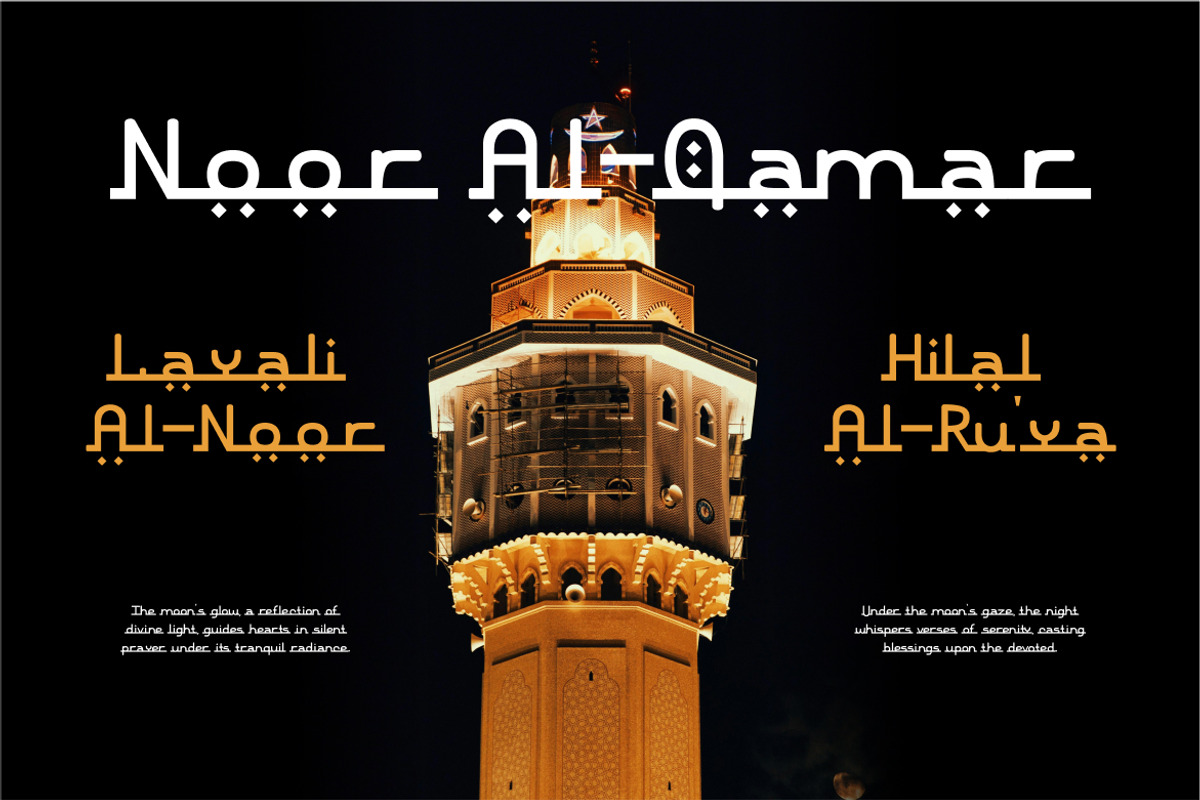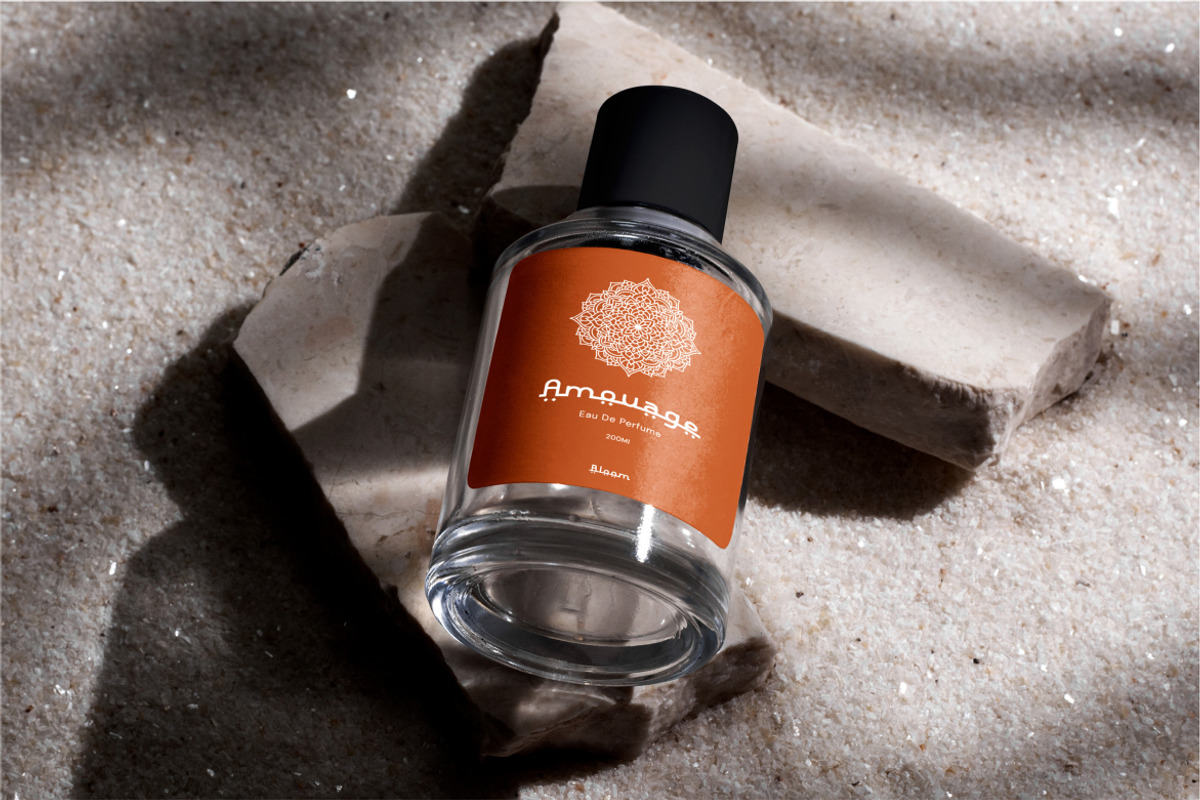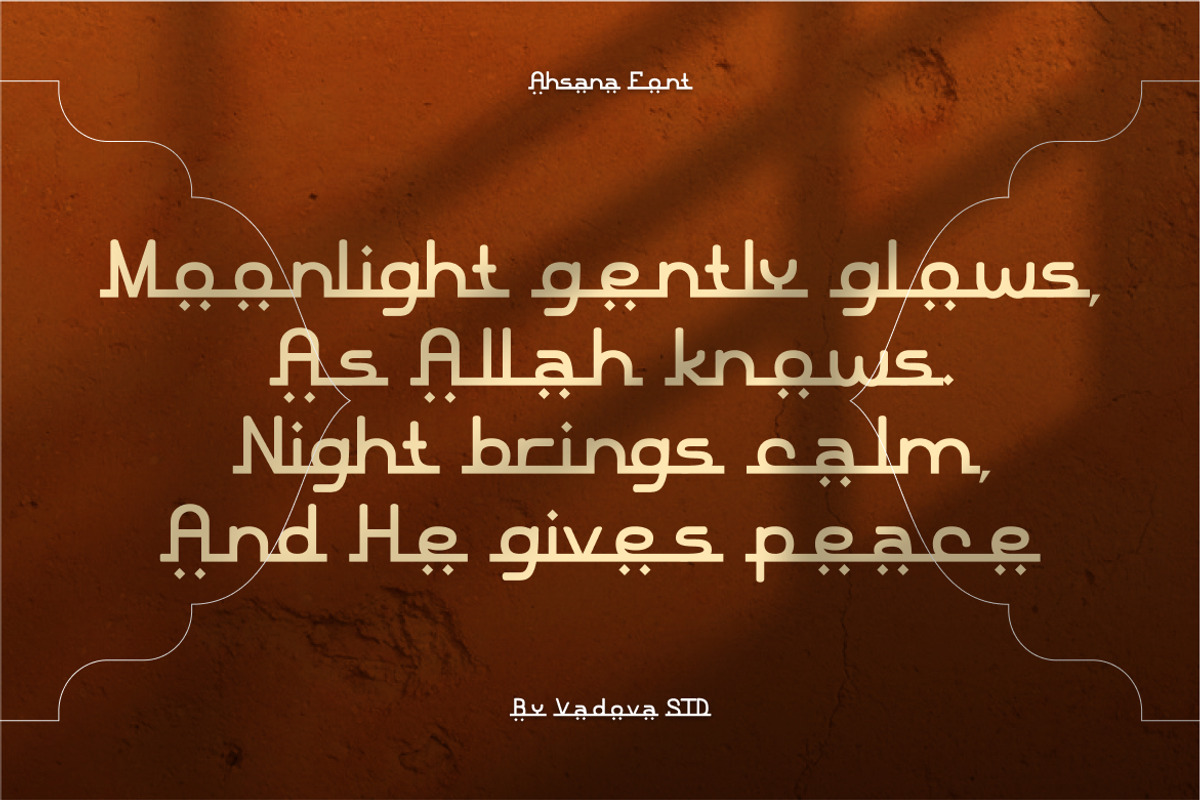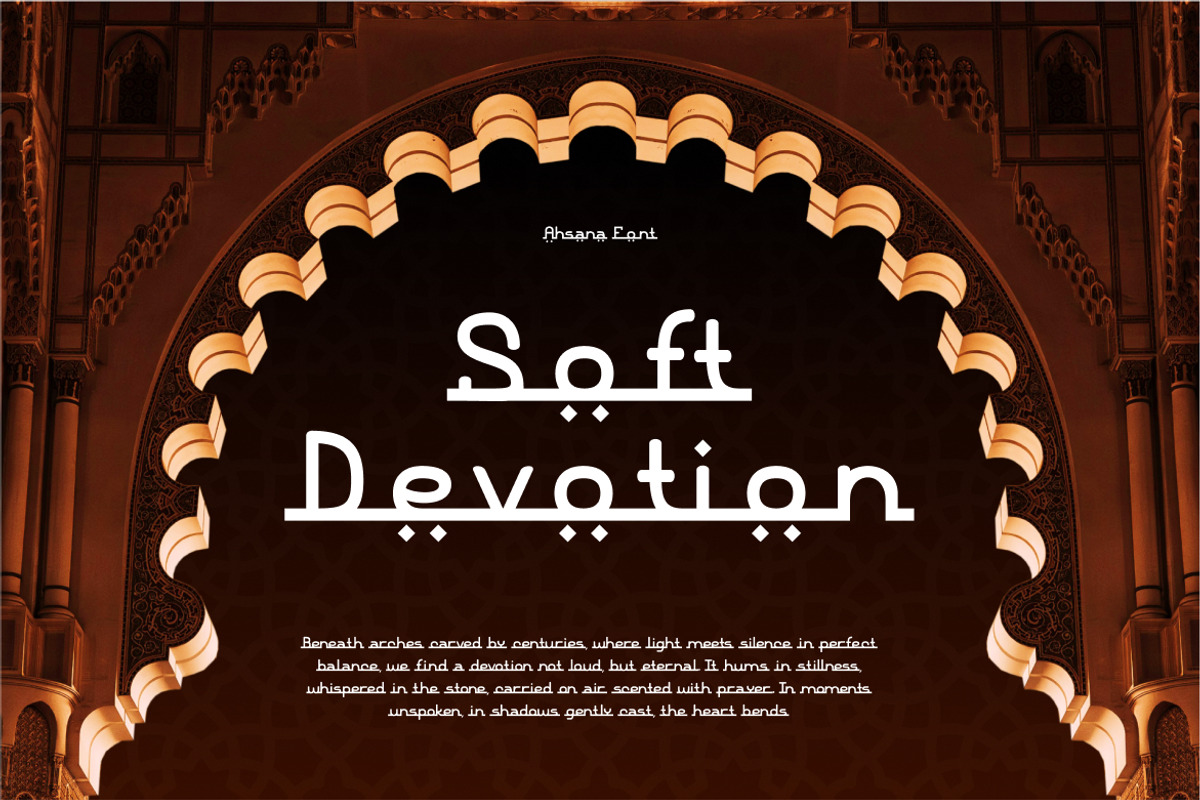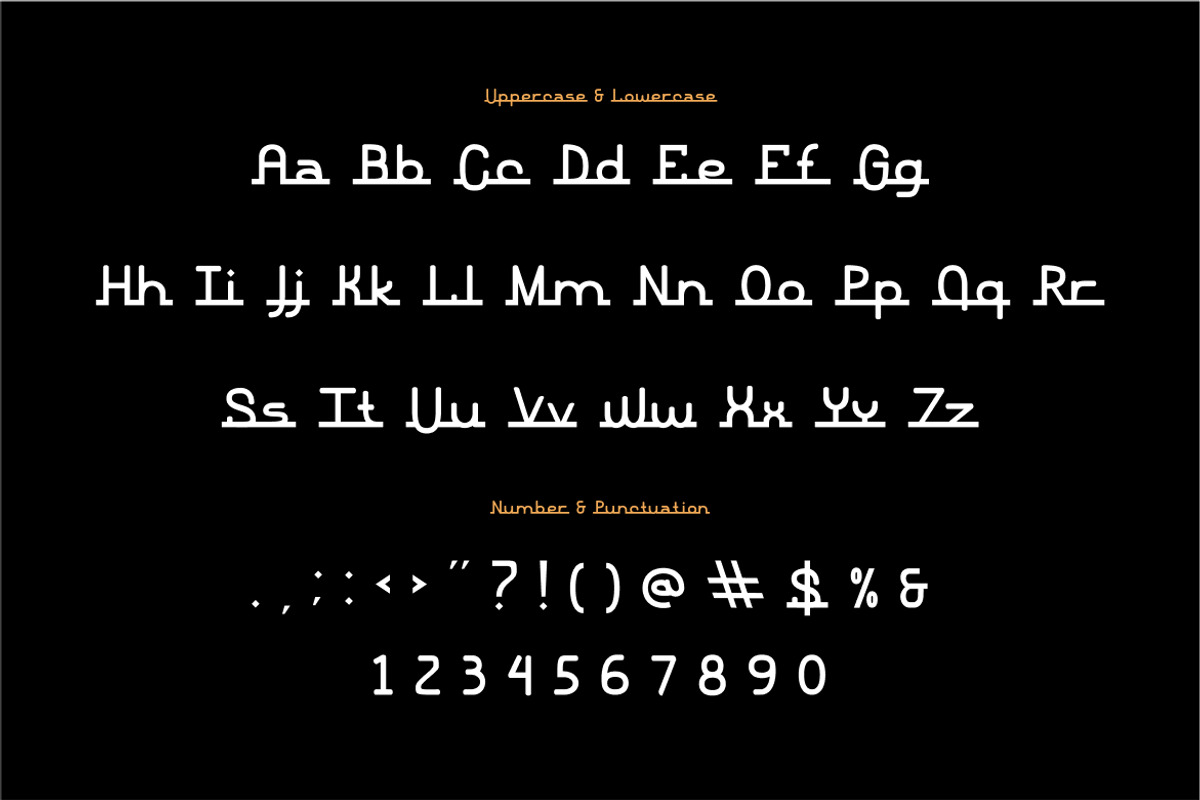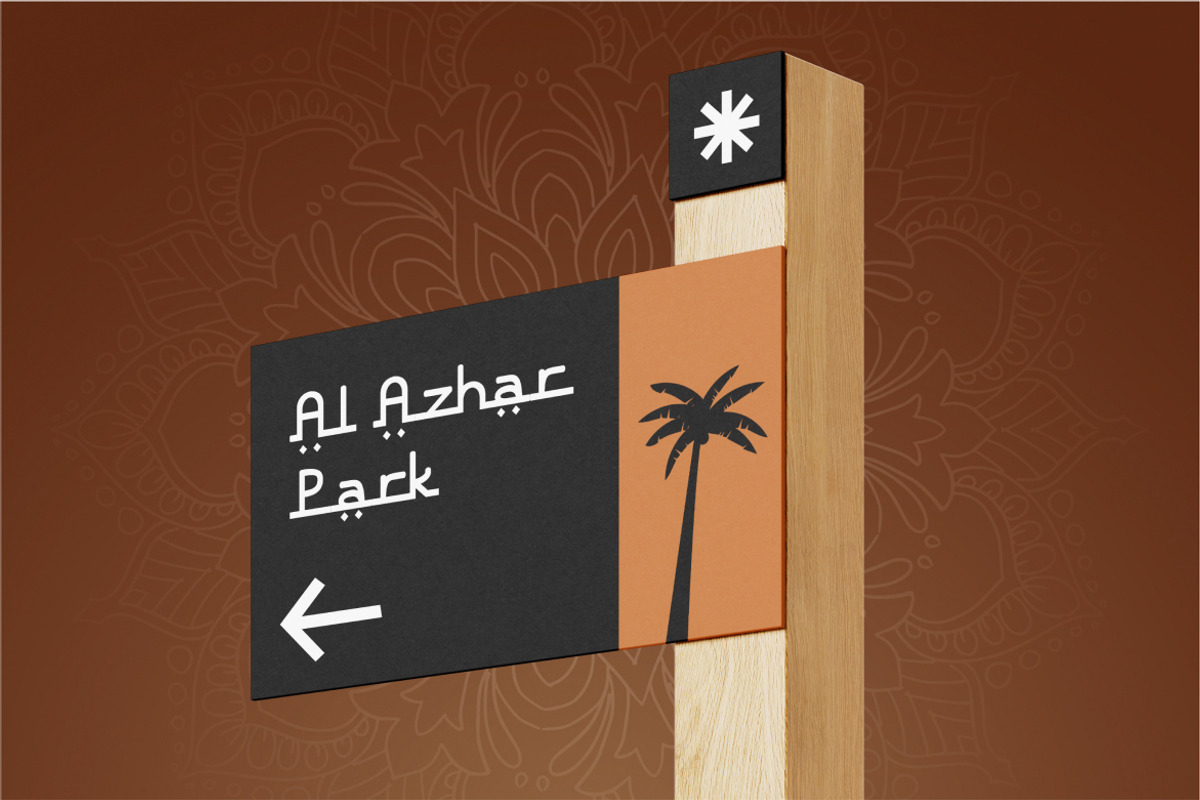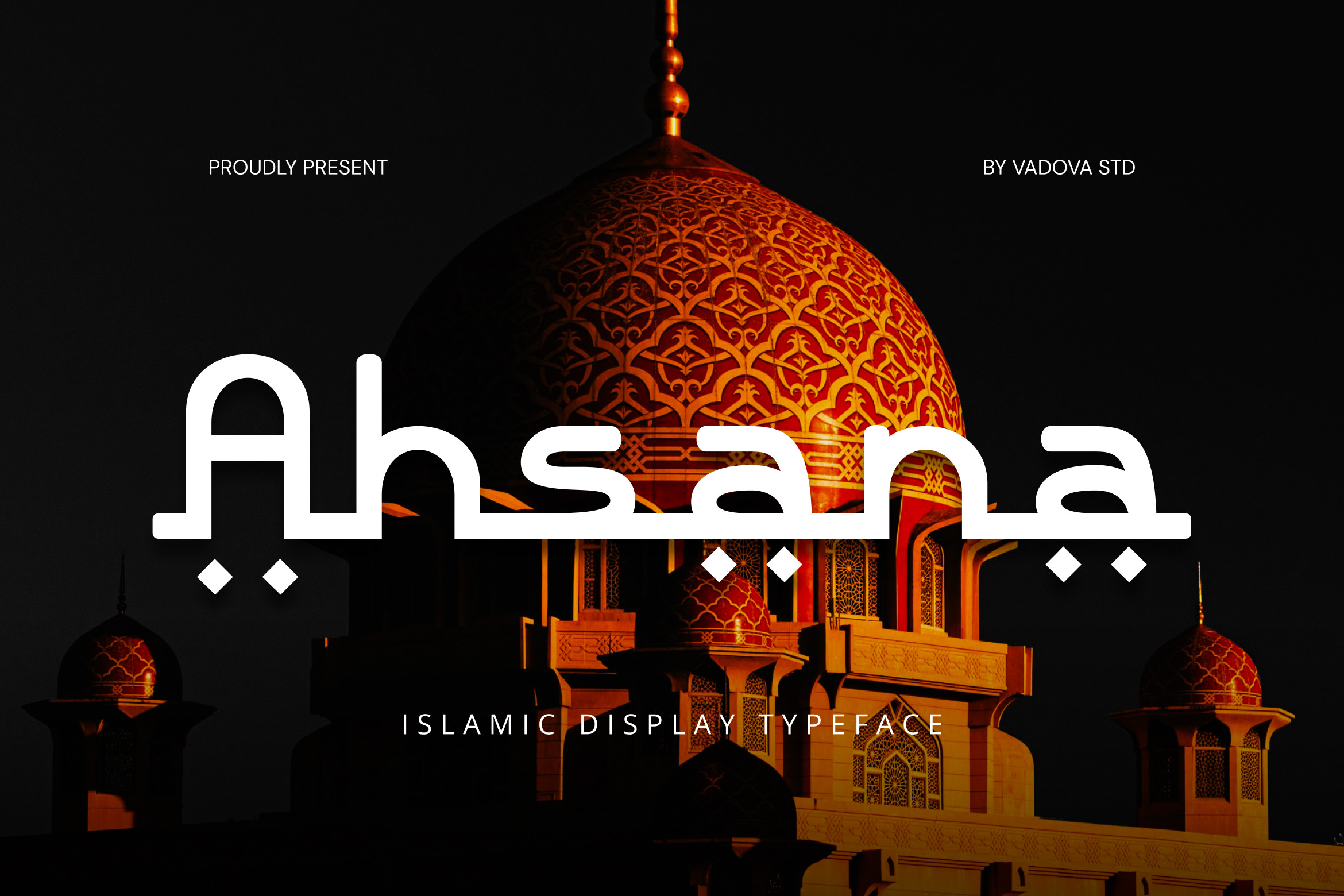
Ahsana Islamic Display Typeface Font
Ahsana is a modern Islamic display typeface inspired by geometric Arabic calligraphy and architectural ornamentation. The letterforms feature elongated horizontal strokes, soft rounded corners, and decorative diacritic elements that reflect Middle Eastern visual heritage while maintaining contemporary clarity. This package includes uppercase, lowercase, numbers, and punctuation, allowing flexible composition for both headline and decorative text.
Ahsana is relevant for Islamic-themed visual communication where cultural elegance and decorative clarity are essential. It works effectively across Ramadan and Eid campaigns, mosque identity systems, halal product packaging, editorial layouts, spiritual social media content, event posters, and branding projects that require an Arabic-inspired yet modern display presence.
- Geometric Islamic construction with elongated horizontal strokes
- Arabic-inspired terminals and diamond diacritic accents
- Smooth monoline weight creating a calm and modern appearance
- Decorative yet structured forms reflecting architectural ornament
- Balanced spacing for clear display composition and headline impact
- Islamic brand identity and cultural logo design projects
- Ramadan, Eid, and religious event promotional graphics
- Mosque branding, community posters, and spiritual campaigns
- Book covers, editorial headlines, and themed display typography
- Social media visuals and digital content with Islamic aesthetic
Craft meaningful visuals with Ahsana inspired by tradition and artistic geometry